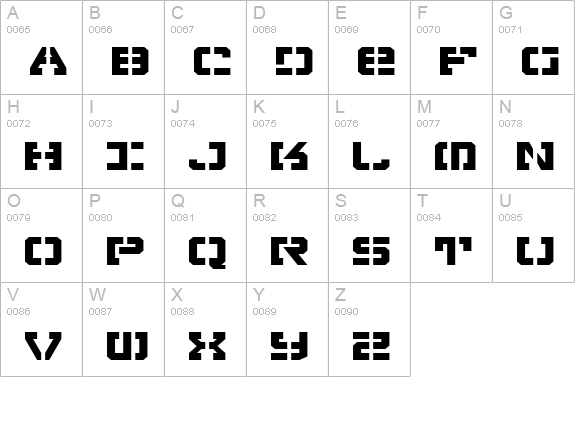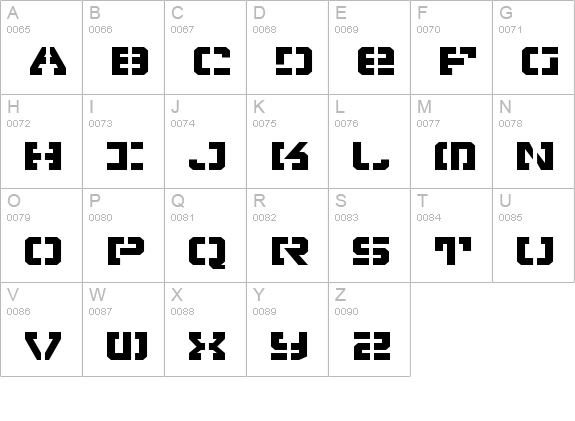
Vyper Expanded is a distinctive, extended-width variant in the Vyper typeface family \xE2\x80\x94 well suited to design and typography projects.
Vyper Expanded font is a striking and modern typeface that exudes a sense of style and sophistication. With its sleek and elongated letterforms, Vyper Expanded is perfect for making a bold statement in various design projects. This versatile font is ideal for headlines, branding, posters, and more. What makes Vyper Expanded even more appealing is that it is available for free download at FontsMarket.com. This means you can easily access this eye-catching font and use it in your projects without any cost. Don't miss out on the opportunity to enhance your designs with the unique charm of Vyper Expanded font. Download it today and unleash your creativity!